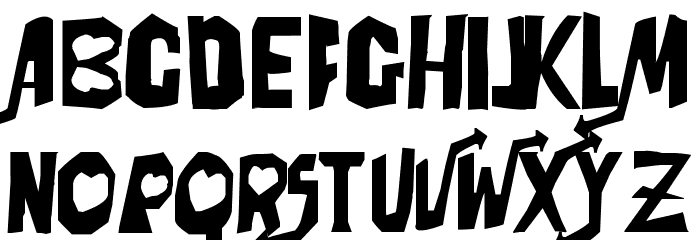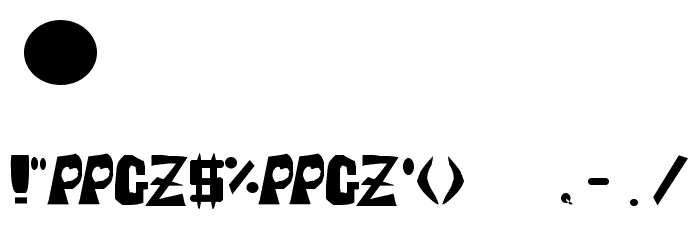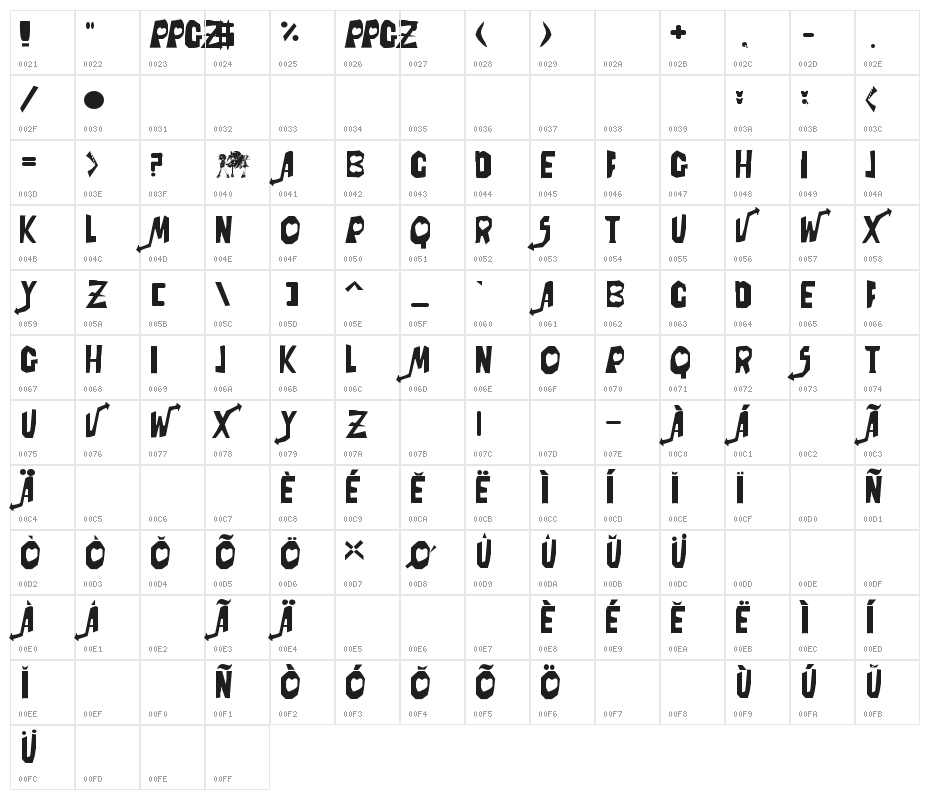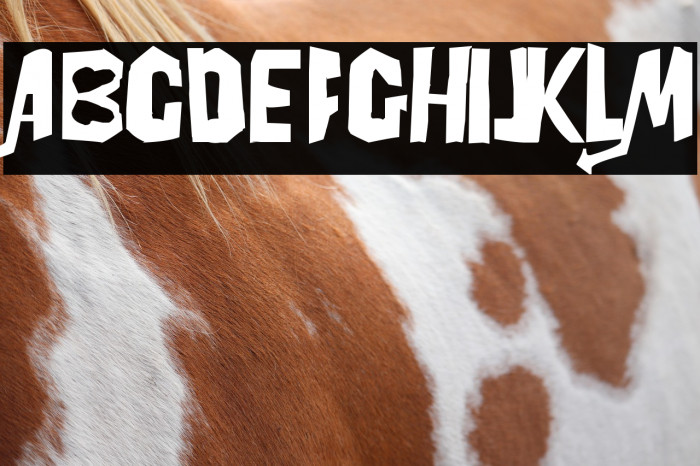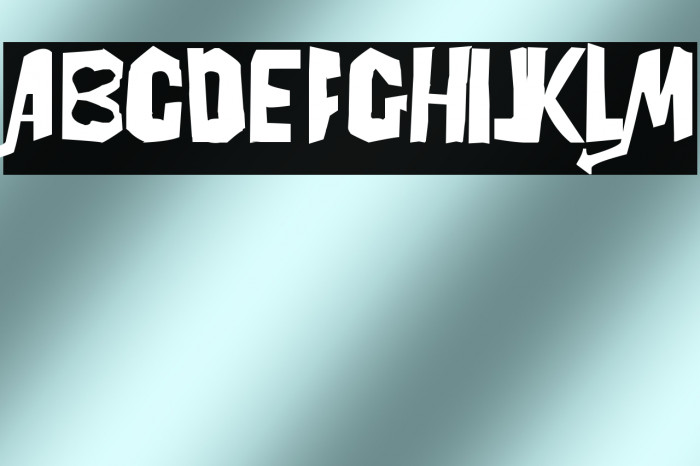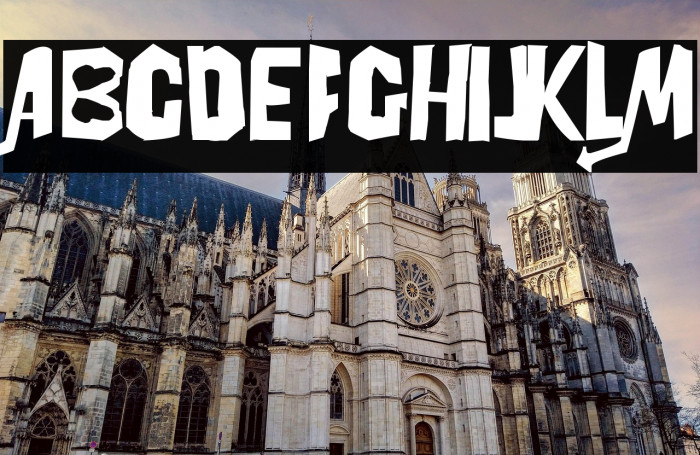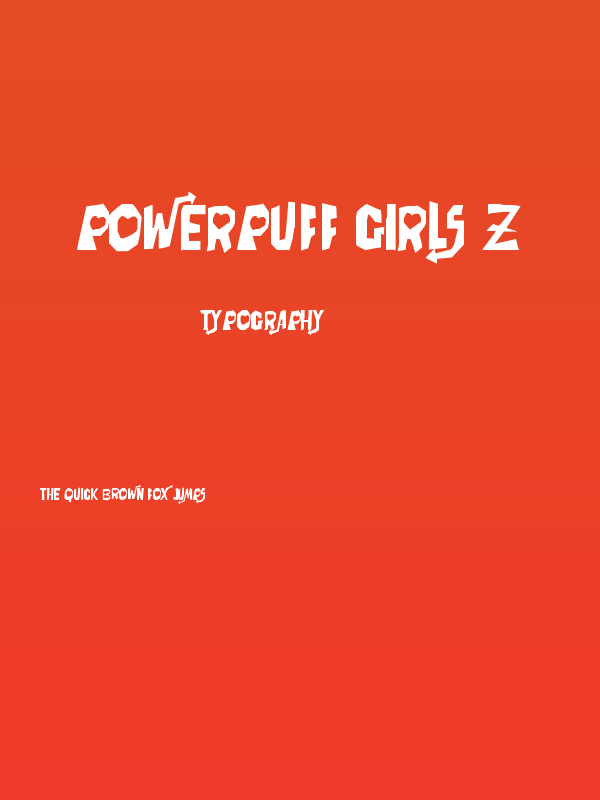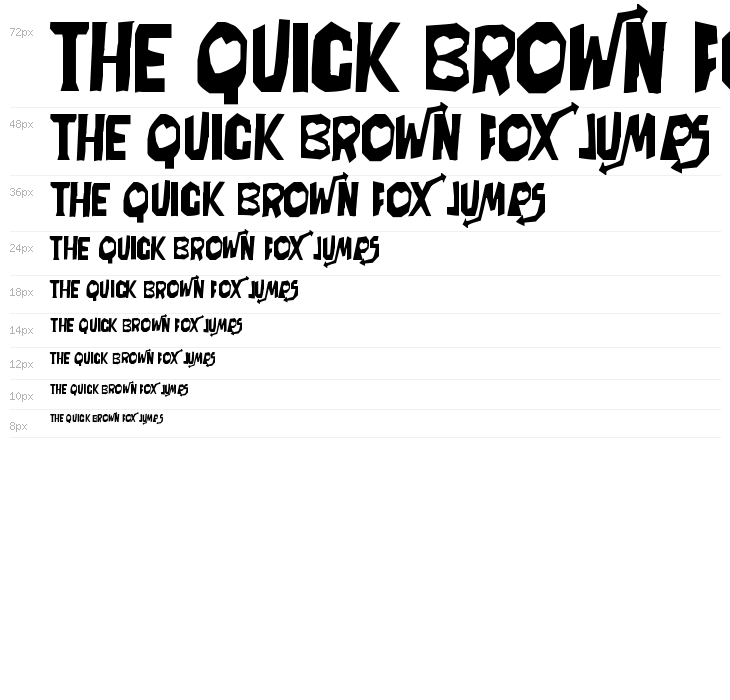
Powerpuff Girls Z Font
This font features a bold and dynamic design with angular, geometric shapes that convey a sense of energy and movement. The uppercase letters are particularly striking, with sharp edges and a slightly irregular form that adds a playful, cartoon-like quality. The lowercase letters maintain this energetic style, ensuring consistency throughout the typeface. The numbers and special characters are equally bold and distinctive, making them stand out in any design. This font is ideal for projects that require a strong visual impact and a touch of whimsy.
A bold, angular font with a playful, energetic style.
- Font: Powerpuff Girls Z
- Proposed Projects: Ideal for comic book titles, children's book covers, playful branding, and animated series promotions.
- Overall Style: Playful, Energetic, Cartoon-like